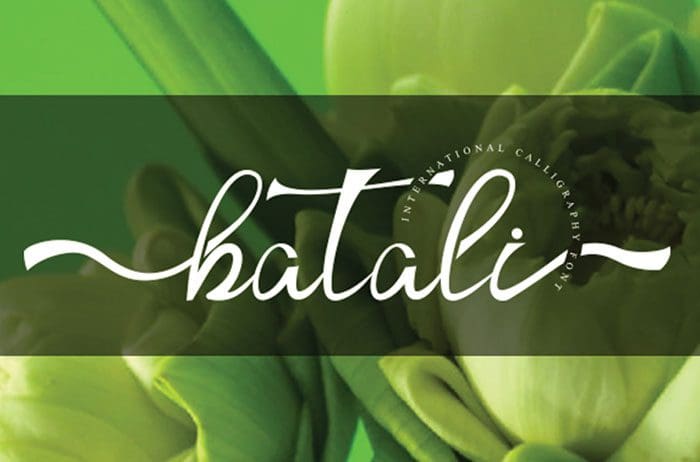
Free Batali Calligraphy Font
Batali Calligraphy Font
Free Batali calligraphy font is a friendly flowing script font with a romantic style. Fall in love with its playful charm! Designed this font by Andika Studio. You can also search more freeĀ Calligraphy Fonts.